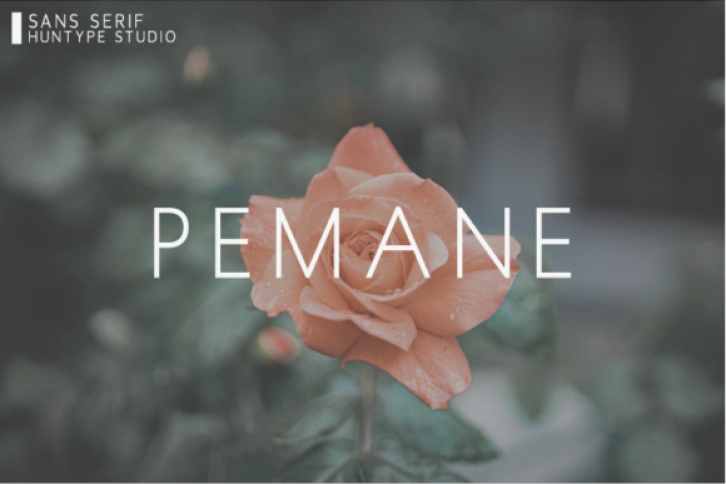
Pemane is a romantic, timeless, and minimalistic all caps sans serif font that will look stunning in every context. This masterfully designed font is a true must-have!